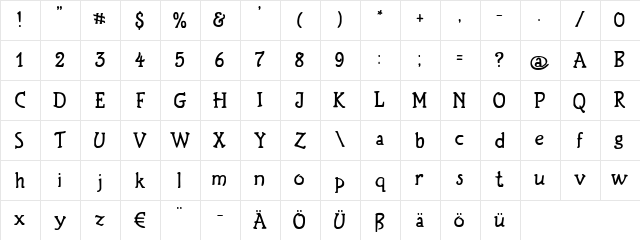
BirthdayGreetz Regular
Design Context for BirthdayGreetz
BirthdayGreetz is a composed and adaptable typeface that performs quietly and consistently across a wide range of design contexts.
Pro Tip: Use BirthdayGreetz in both headline and body roles to test its range before committing to a single application.